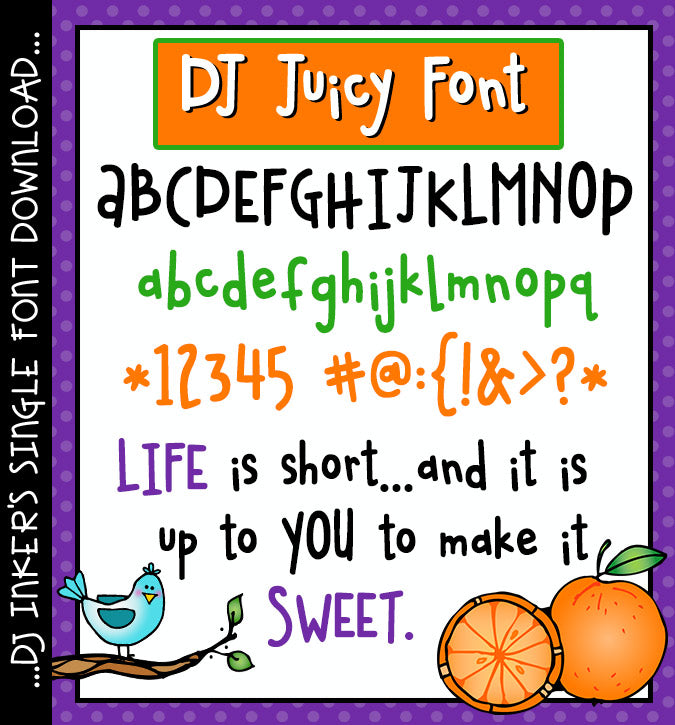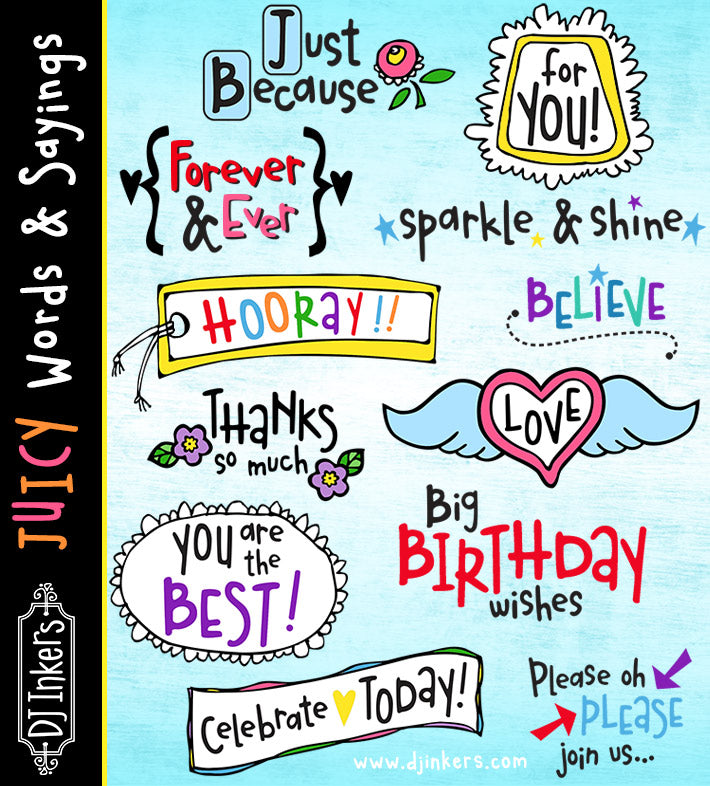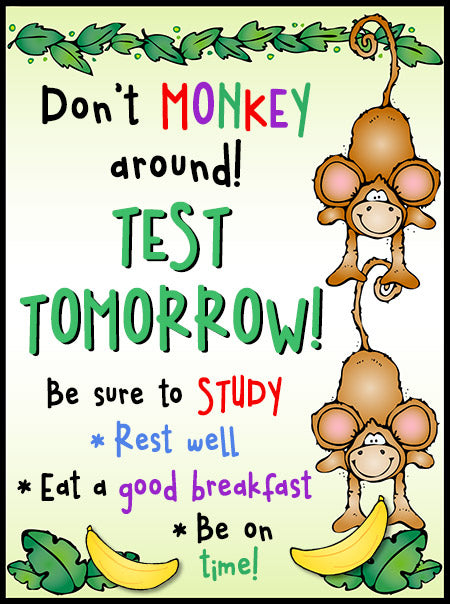
Make your lettering stand-out with this fun font by DJ Inkers
DJ Juicy Font Download
Make your lettering stand-out with this fun font by DJ Inkers
DJ Juicy Font Download
Make your lettering stand-out with this fun & juicy font by DJ Inkers!  You'll add playful personality while still keeping things strong & easy to read.  This versatile font will be awesome for kids, teens, classrooms, art projects, posters, fliers, parties and crafting.